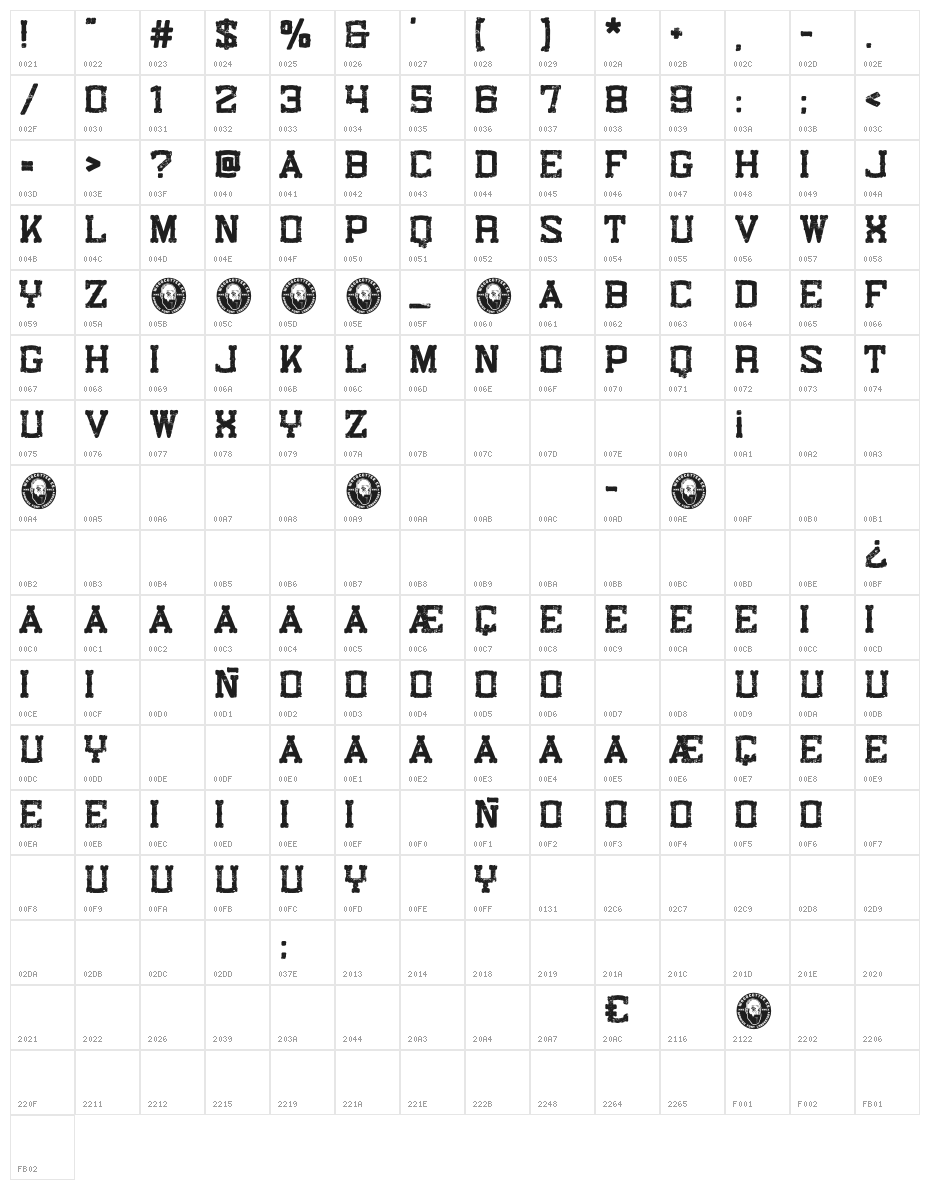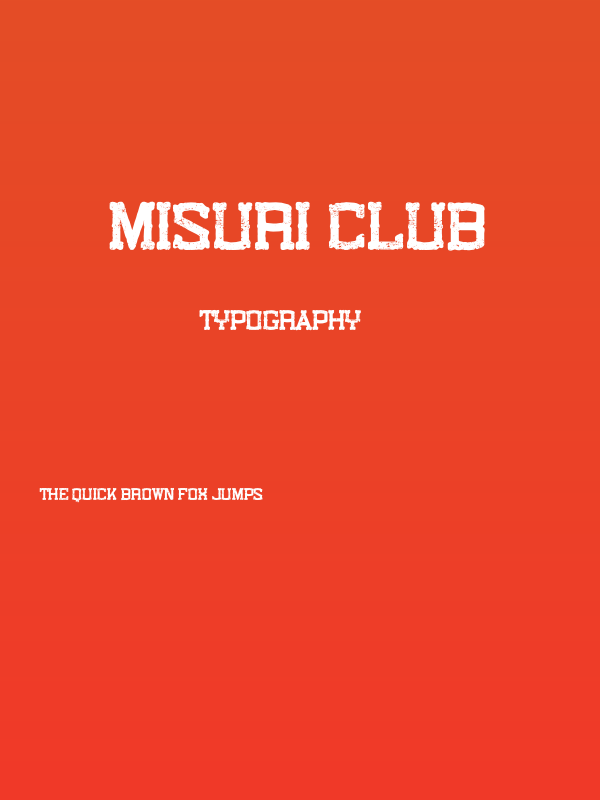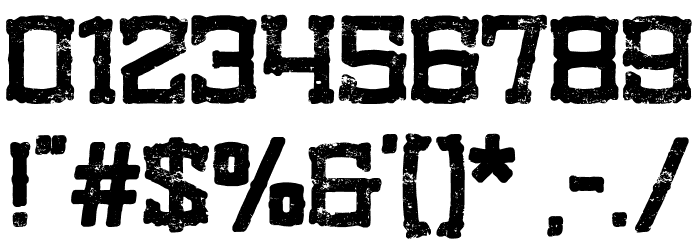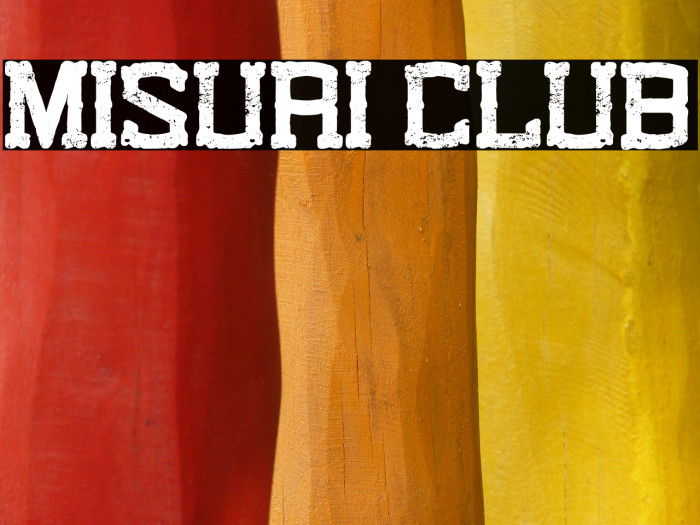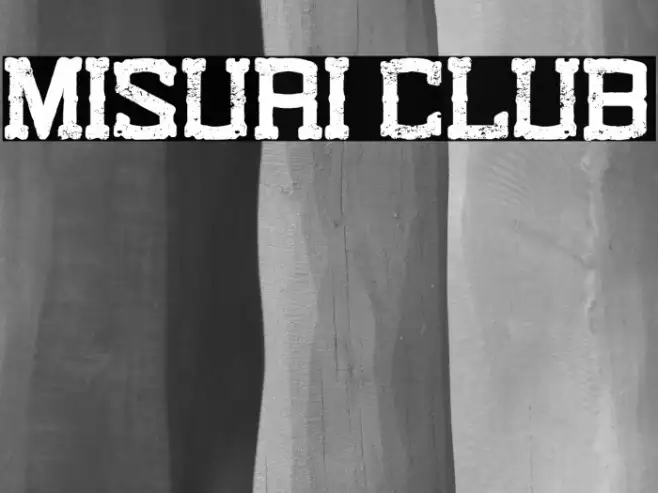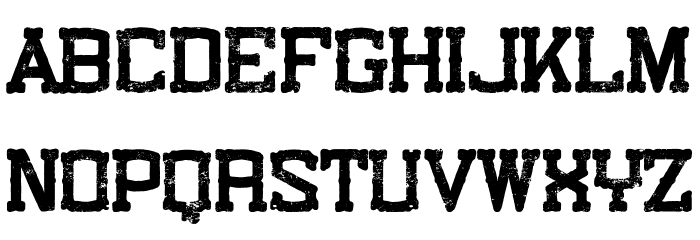
Misuri Club Font
Misuri Club Description
This font features a rugged, distressed appearance with a bold and impactful presence. Each character is designed with a textured, worn-out effect, giving it a vintage and industrial feel. The uppercase letters are prominent and strong, while the numbers and special characters maintain the same distressed style, ensuring consistency across all glyphs. The font's unique texture makes it stand out, perfect for designs that require a gritty, authentic look. Its boldness and distinctive style make it ideal for creating eye-catching headlines or logos that demand attention.
| Proposed Projects | Ideal for vintage posters, industrial-themed branding, and bold headlines. |